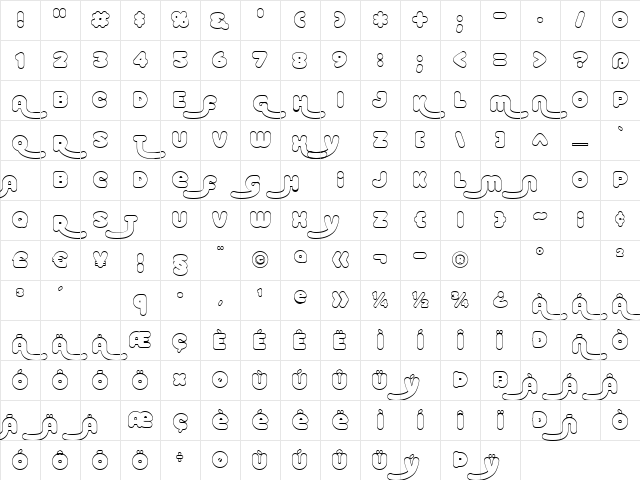
Roller Baby BV Alt Shadow Regular
Design Context for Roller Baby BV Alt Shadow
Roller Baby BV Alt Shadow is built around its visual character rather than neutral utility - its distinctive forms are designed to make an impression at display sizes.
Font Pairing: Pair with a clean neutral sans-serif for body copy to let Roller Baby BV Alt Shadow's character lead without overwhelming the composition.
Pro Tip: Use Roller Baby BV Alt Shadow exclusively at display sizes - it was designed to be seen, not read at length. Let a neutral companion handle body copy.